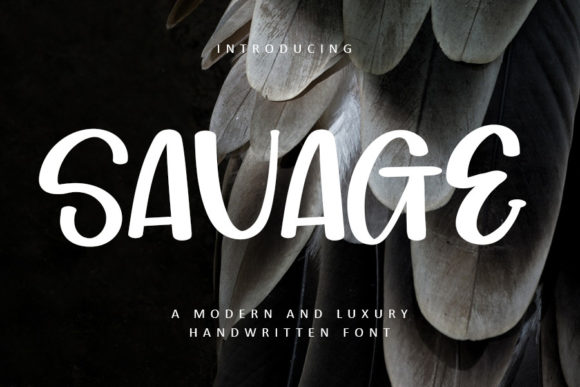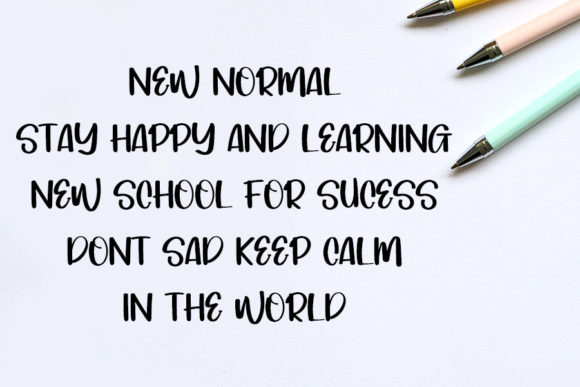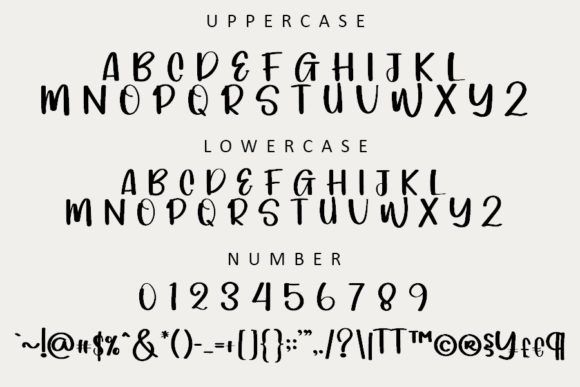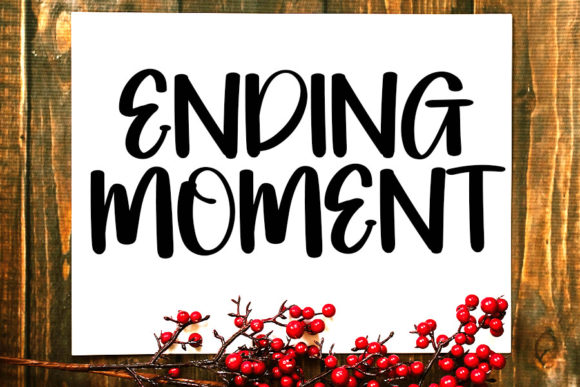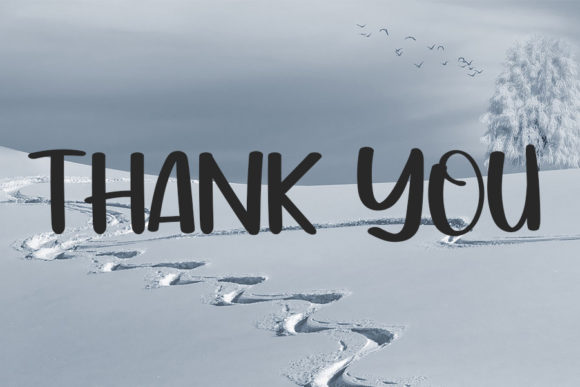
Savage Font
About Savage Font
Savage is a cool, brushed and quirky handwritten font. No matter the topic, this font will be an incredible asset to your fonts’ library, as it has the potential to elevate any creation.